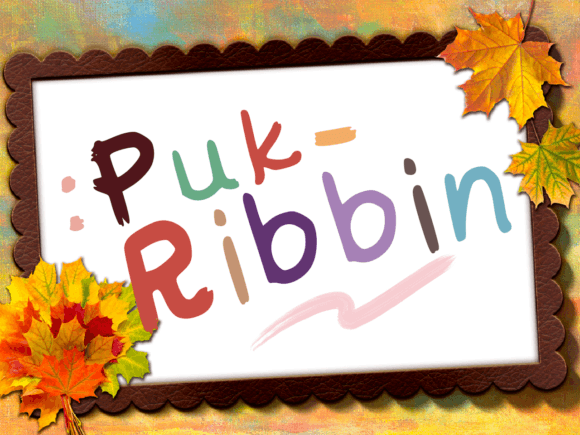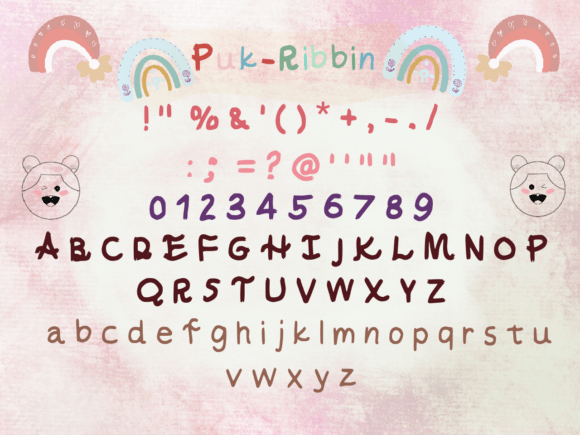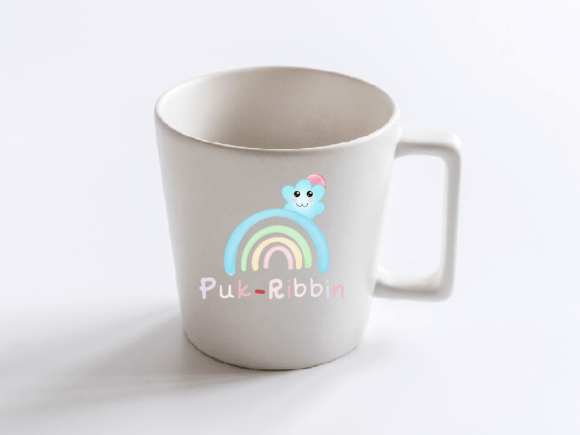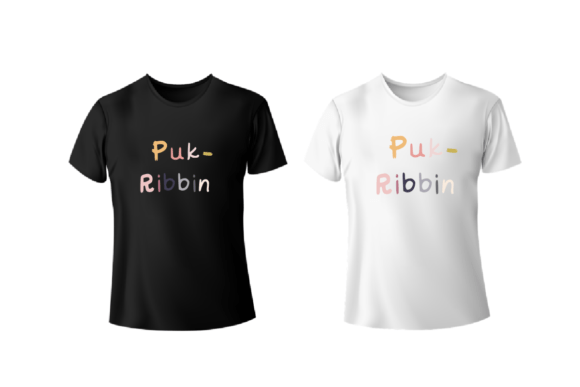
Puk Ribbin Font
About Puk Ribbin Font
Introducing “Puk Ribbin,” a lovely handwritten font designed with a distinctive streak at the end of each letter. This unique feature adds a touch of originality to your letters, making them look different and standout in various design projects. Whether you’re working on letter designs, greeting cards, wedding invitations, or any other creative endeavor, “Puk Ribbin” brings a charming and distinctive element to your text.
The streak at the end of each letter in “Puk Ribbin” provides a playful and dynamic visual effect, creating a handwritten look that stands out from conventional fonts. This makes it a great choice for projects where you want to infuse a sense of individuality and creativity.
Incorporate “Puk Ribbin” into your designs to add a unique and charming touch. Its handwritten style with a streak at the end of each letter makes it suitable for a variety of applications, allowing you to create letters and cards that are not only lovely but also distinctly original.
In summary, “Puk Ribbin” is more than just a font; it’s a creative tool designed to make your letters look different and original. Download “Puk Ribbin” now and explore how it can enhance your letter designs, greeting cards, wedding invitations, and various other creative projects. With its distinctive streak, “Puk Ribbin” is ready to bring a touch of charm and individuality to your designs.